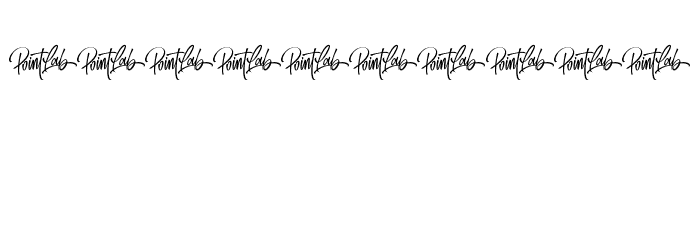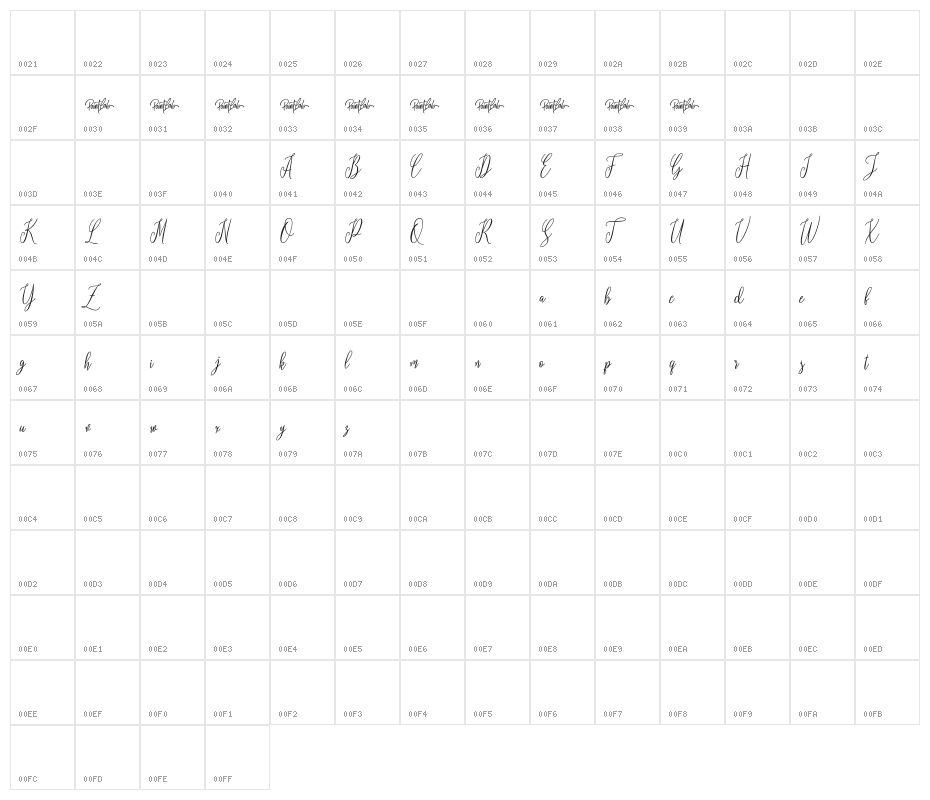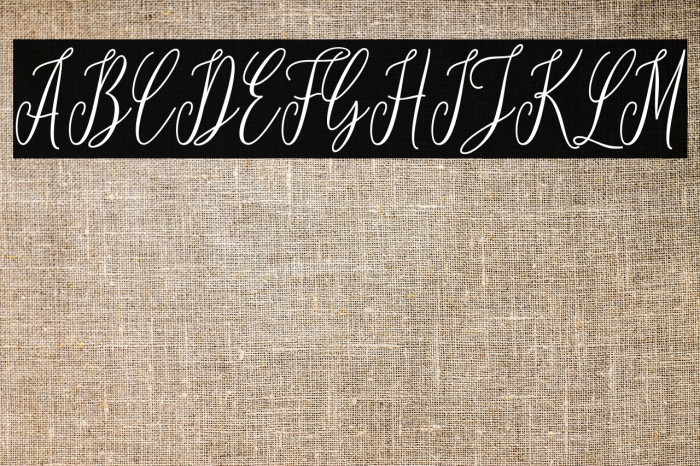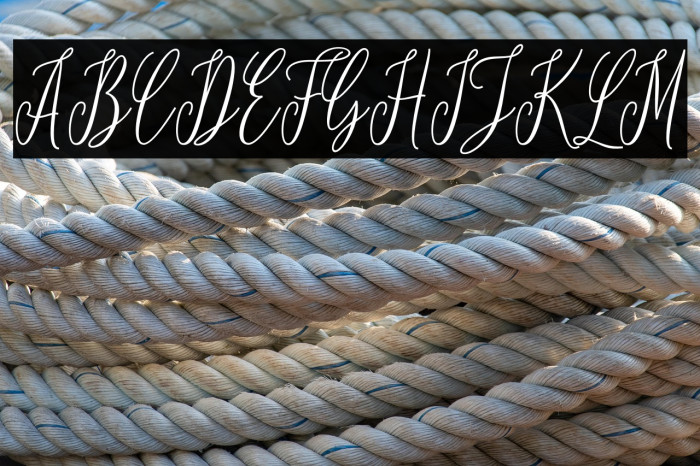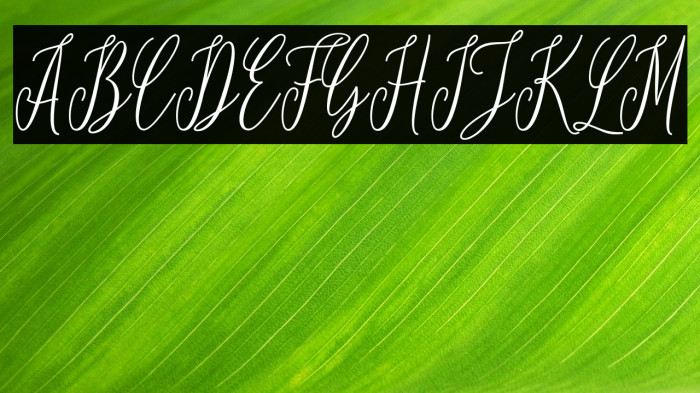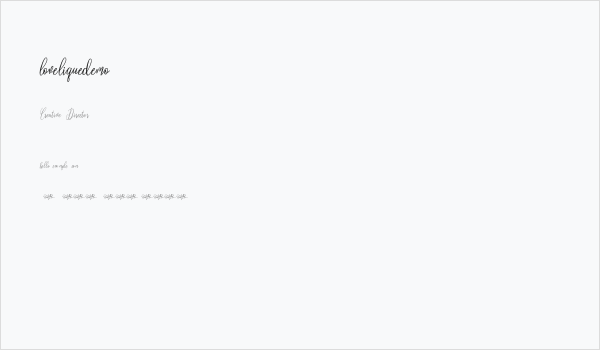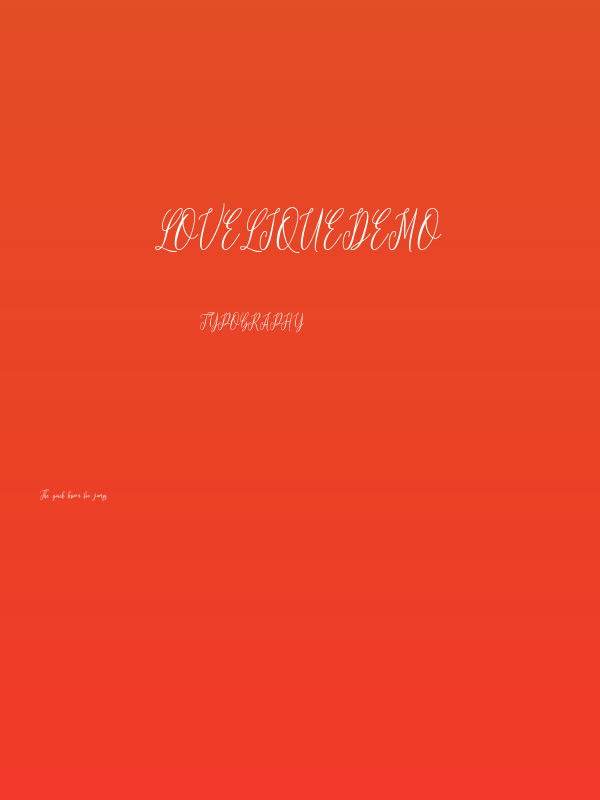
loveliquedemo Font
loveliquedemo Description
This font exudes elegance and sophistication with its flowing, cursive style. The characters are intricately designed with smooth curves and delicate loops, giving it a handwritten appearance. The uppercase letters are tall and graceful, while the lowercase letters maintain a consistent flow, enhancing readability. The font's overall aesthetic is both classic and modern, making it versatile for various design needs. Its thin strokes and high contrast between thick and thin lines add a touch of refinement, suitable for projects that require a personal and artistic touch.
| Proposed Projects | Ideal for wedding invitations, greeting cards, branding, and logos that require a personal and artistic touch. |